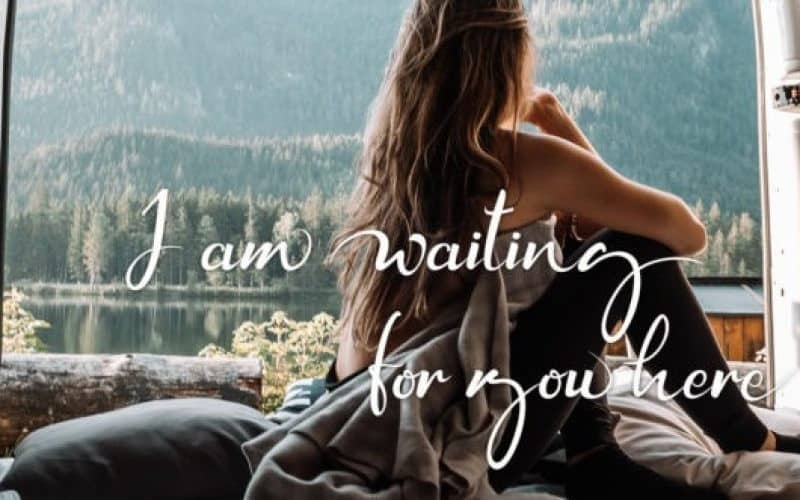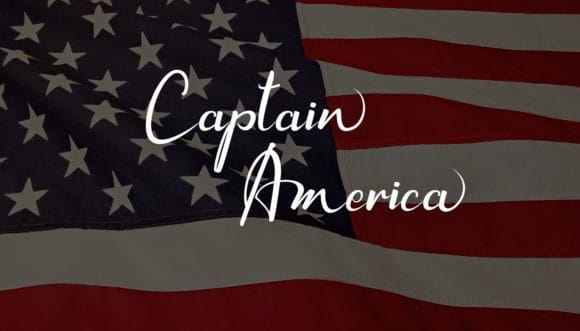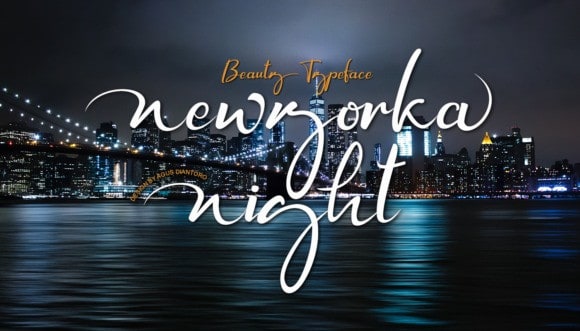
Newyorka Night Script Font
Newyorka Night Font is a handwritten signature font. For those of you who are needing a touch of clean handwritten signature, chic and modernity for your designs, this font was created for you! Newyorka Night Script Font is designed and shared by Agus Diantoro. It’s a great display font. It will add a modern and elegant look to your designs! Get inspired by its authentic feel and use it to create gorgeous wedding invitations, beautiful stationary art, eye-catching social media posts, and cute greeting cards.